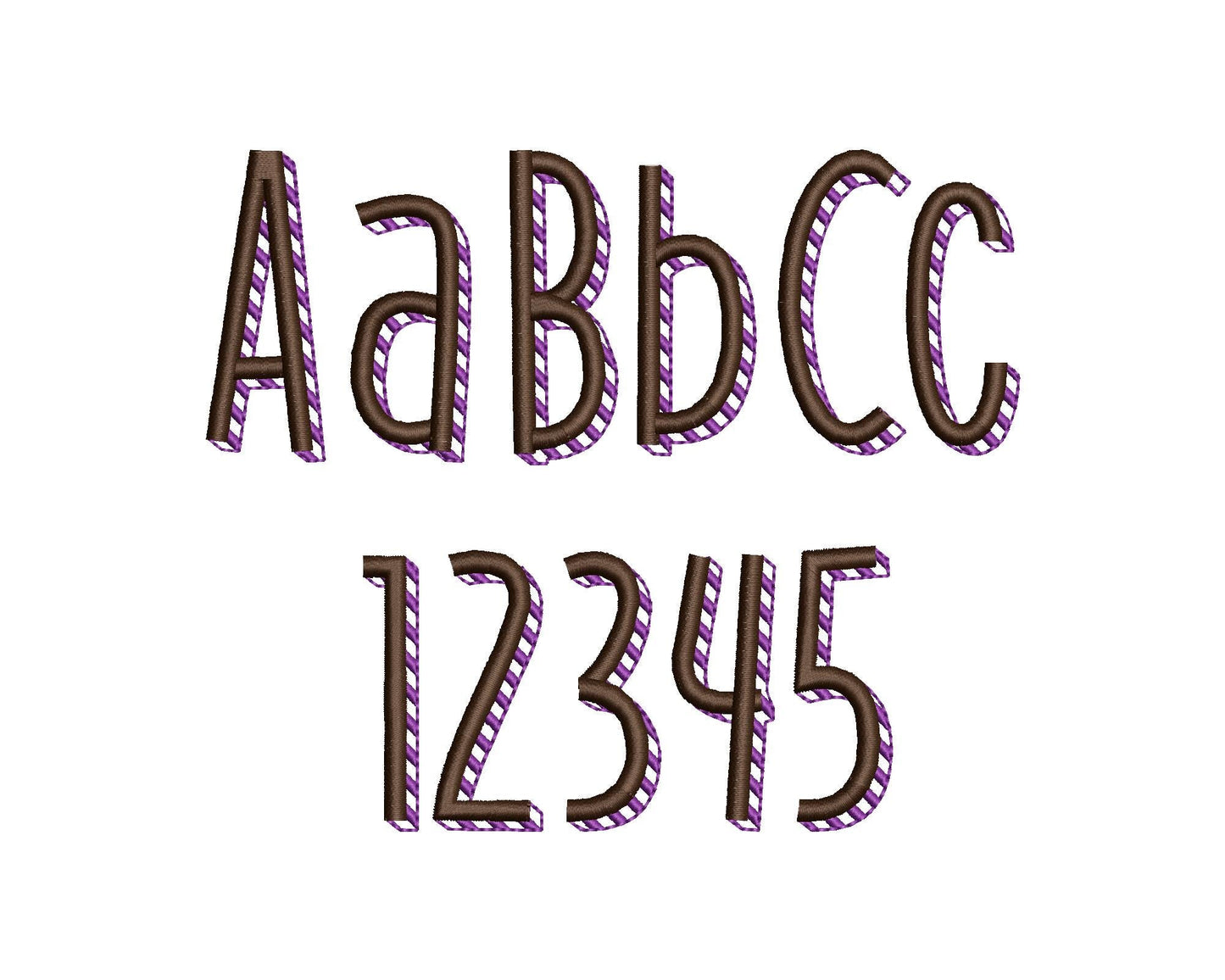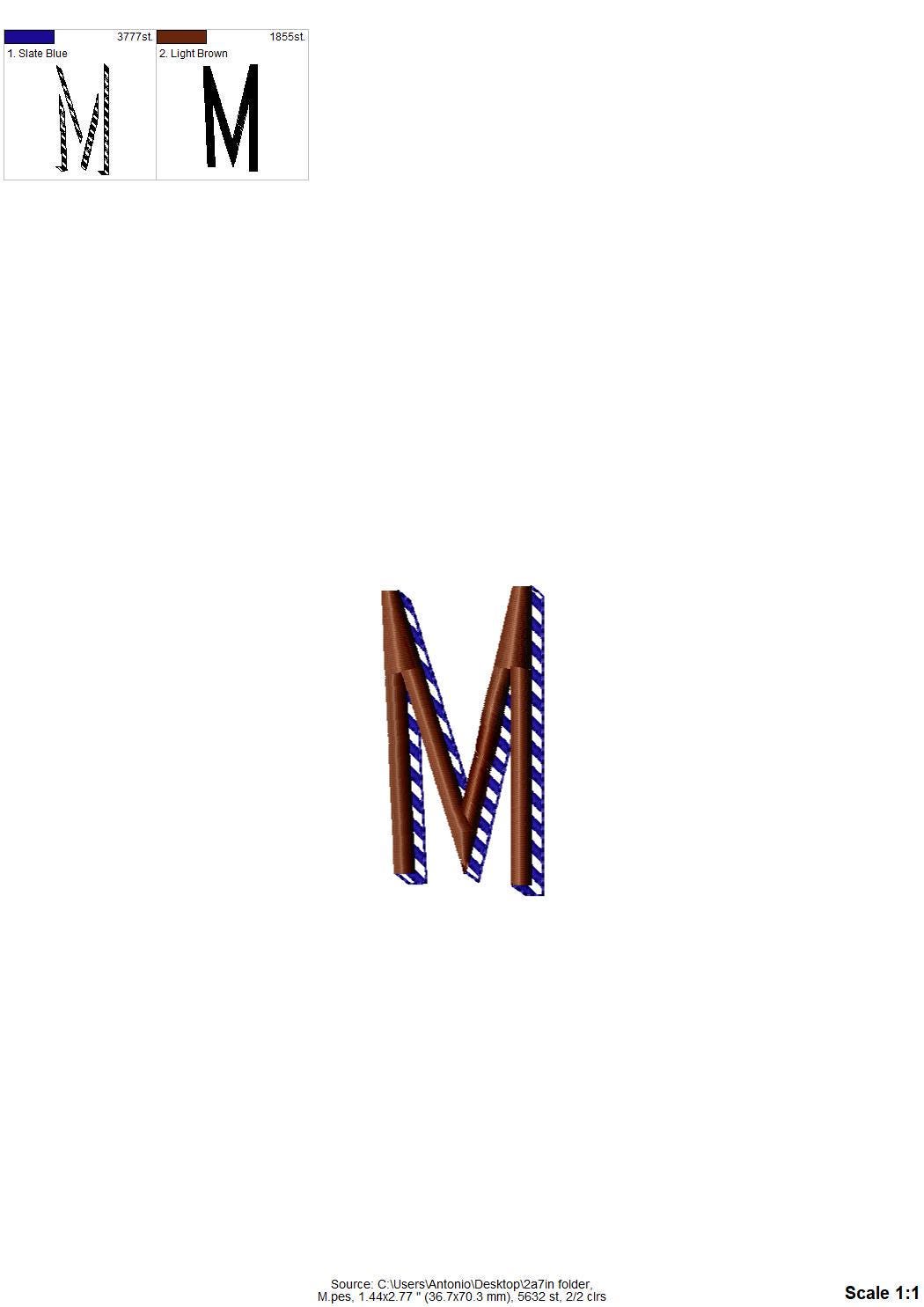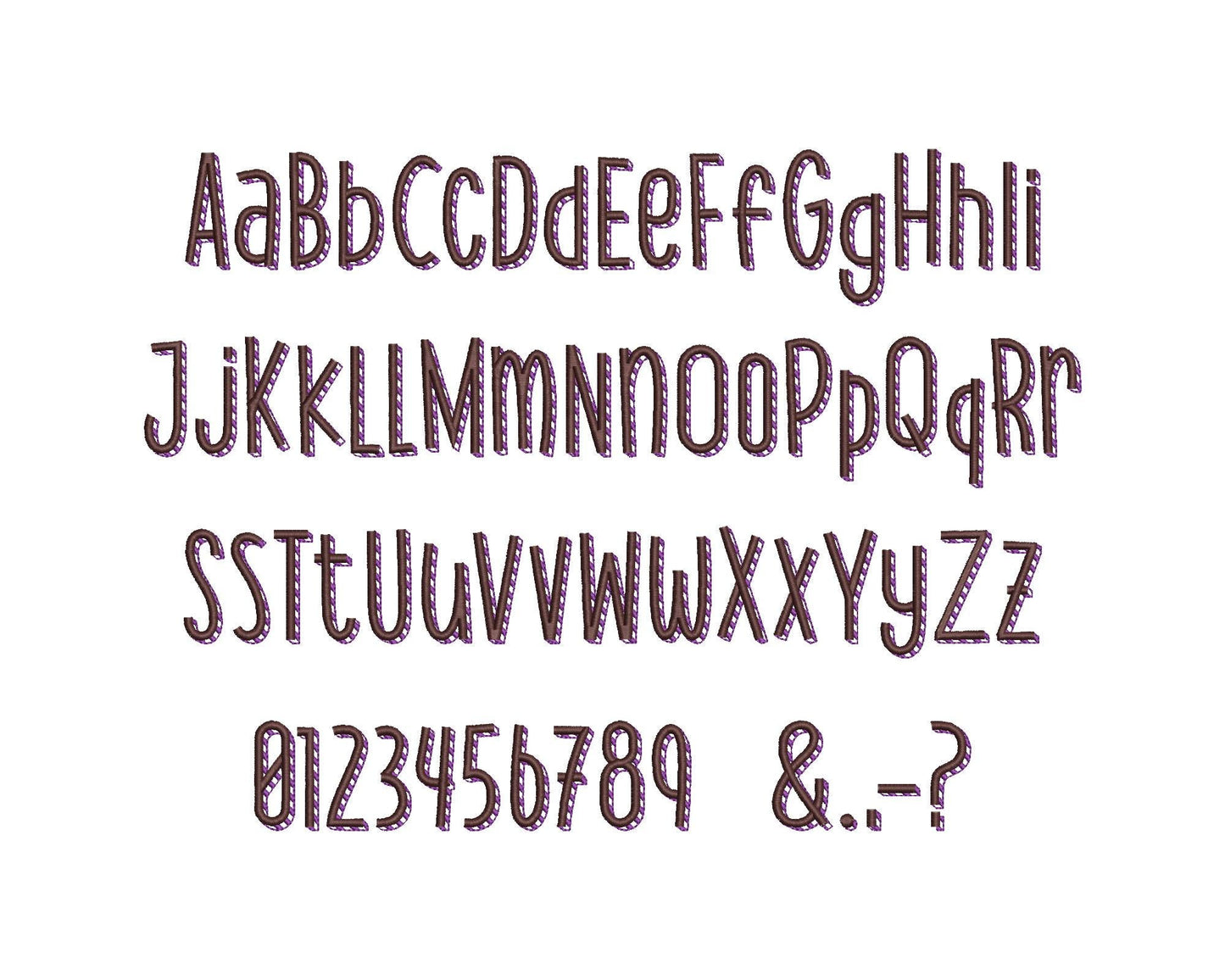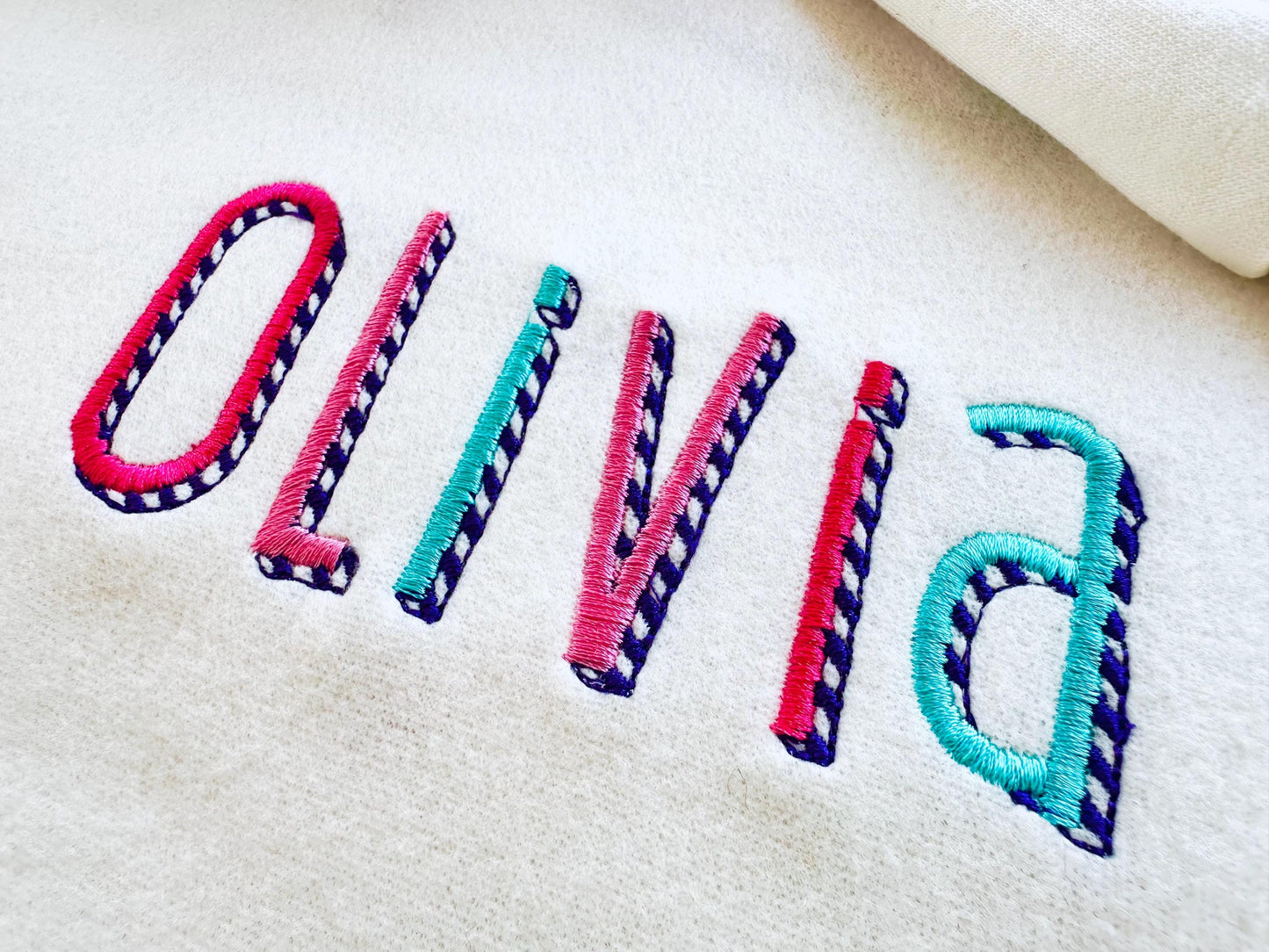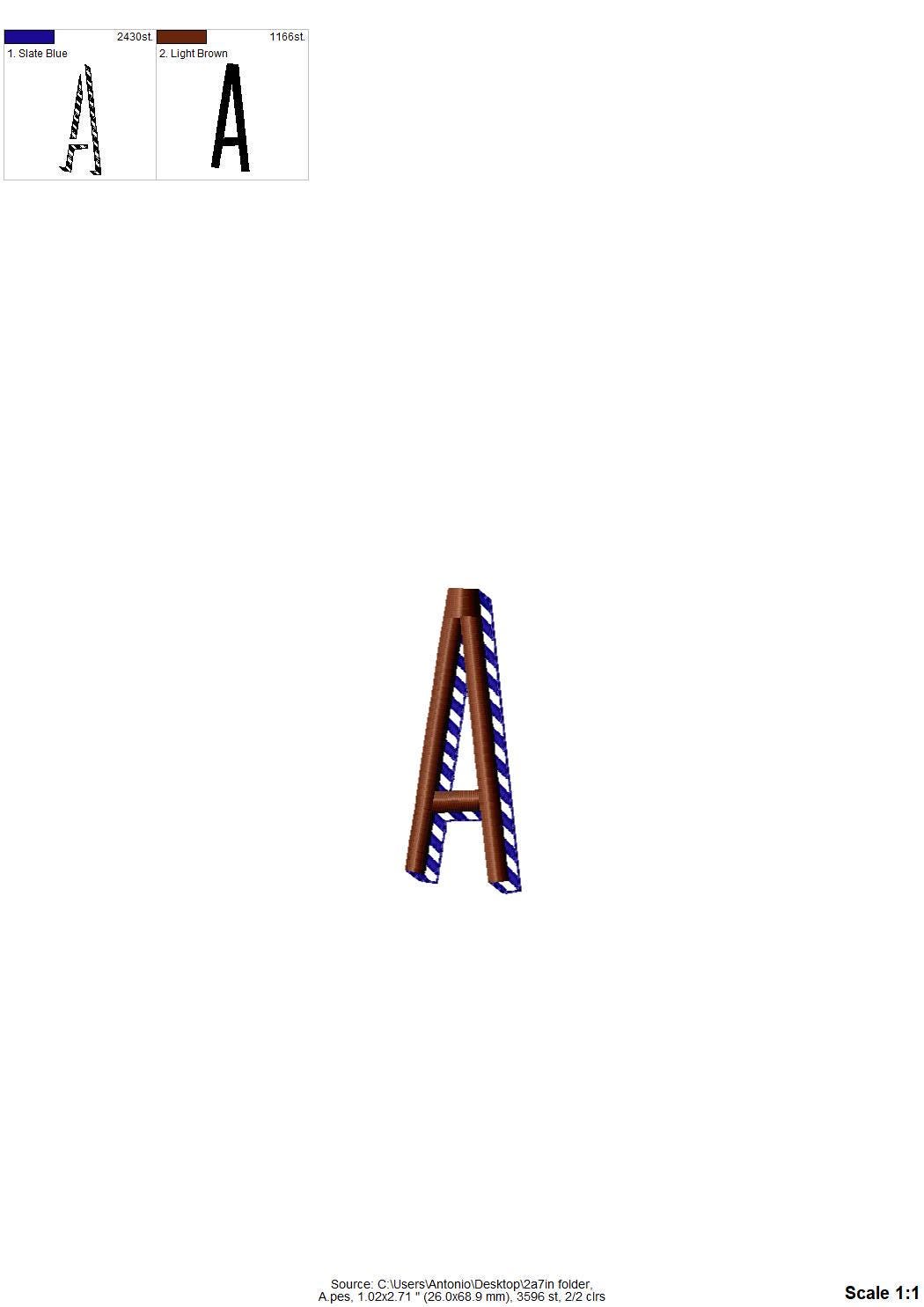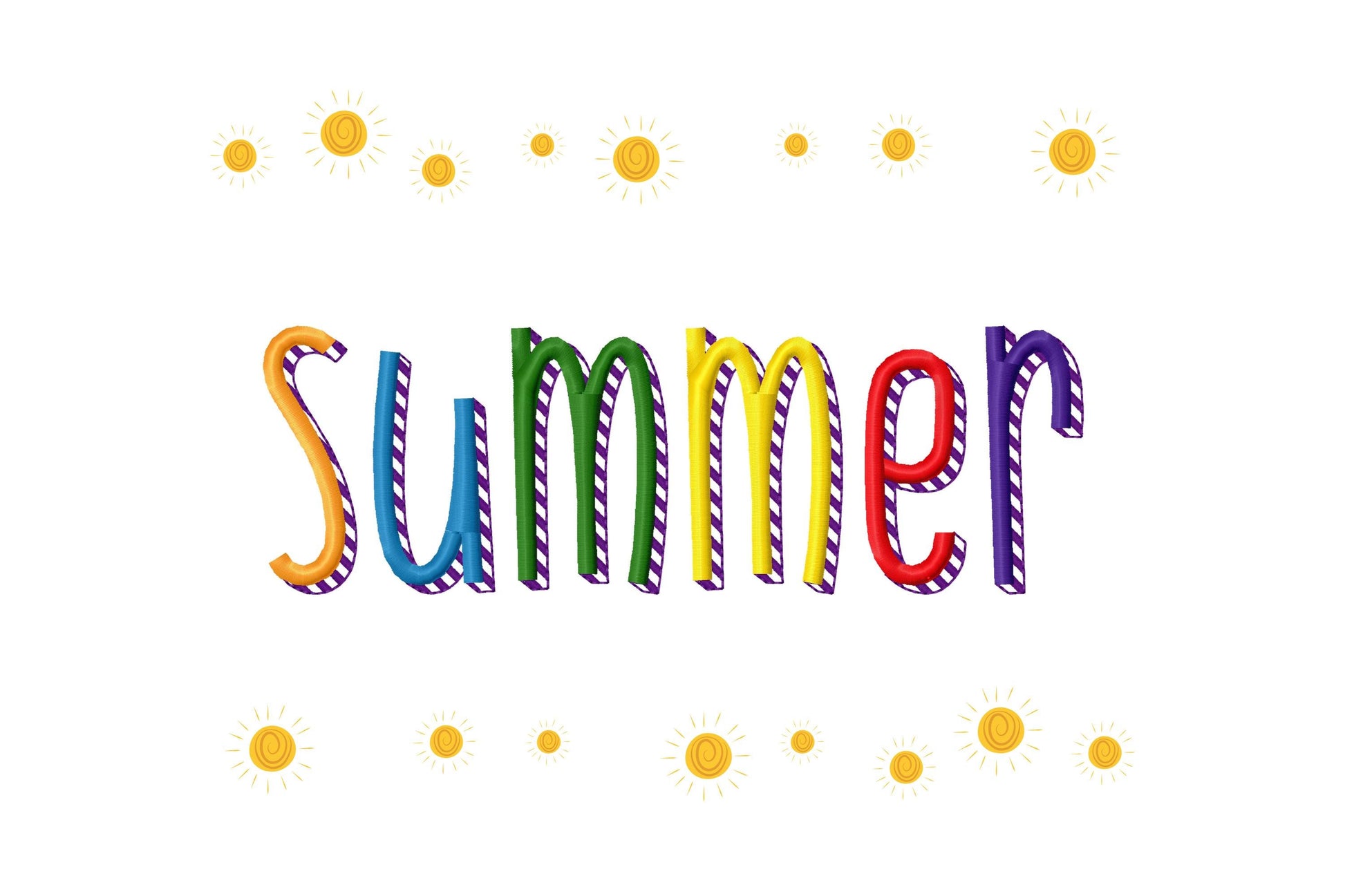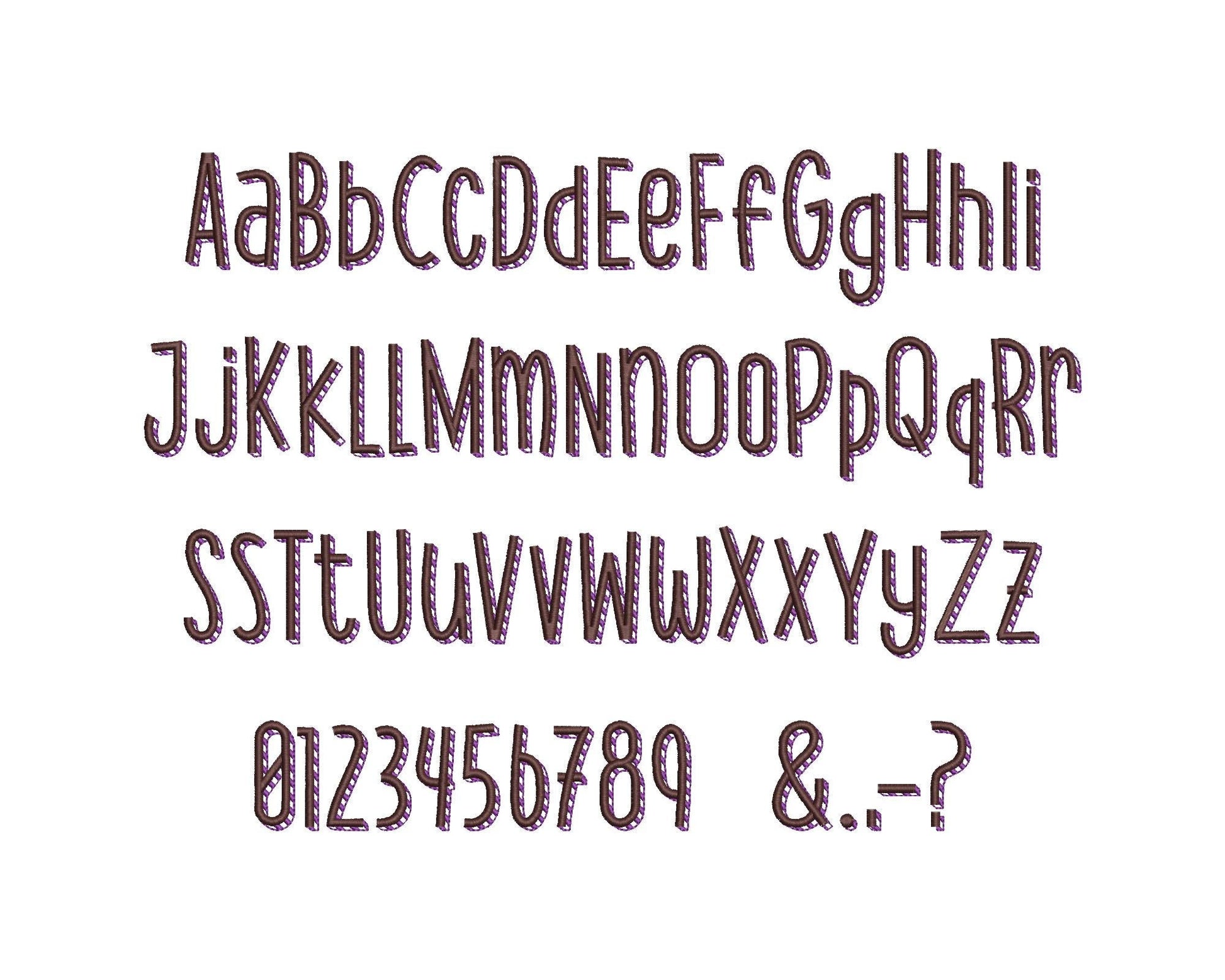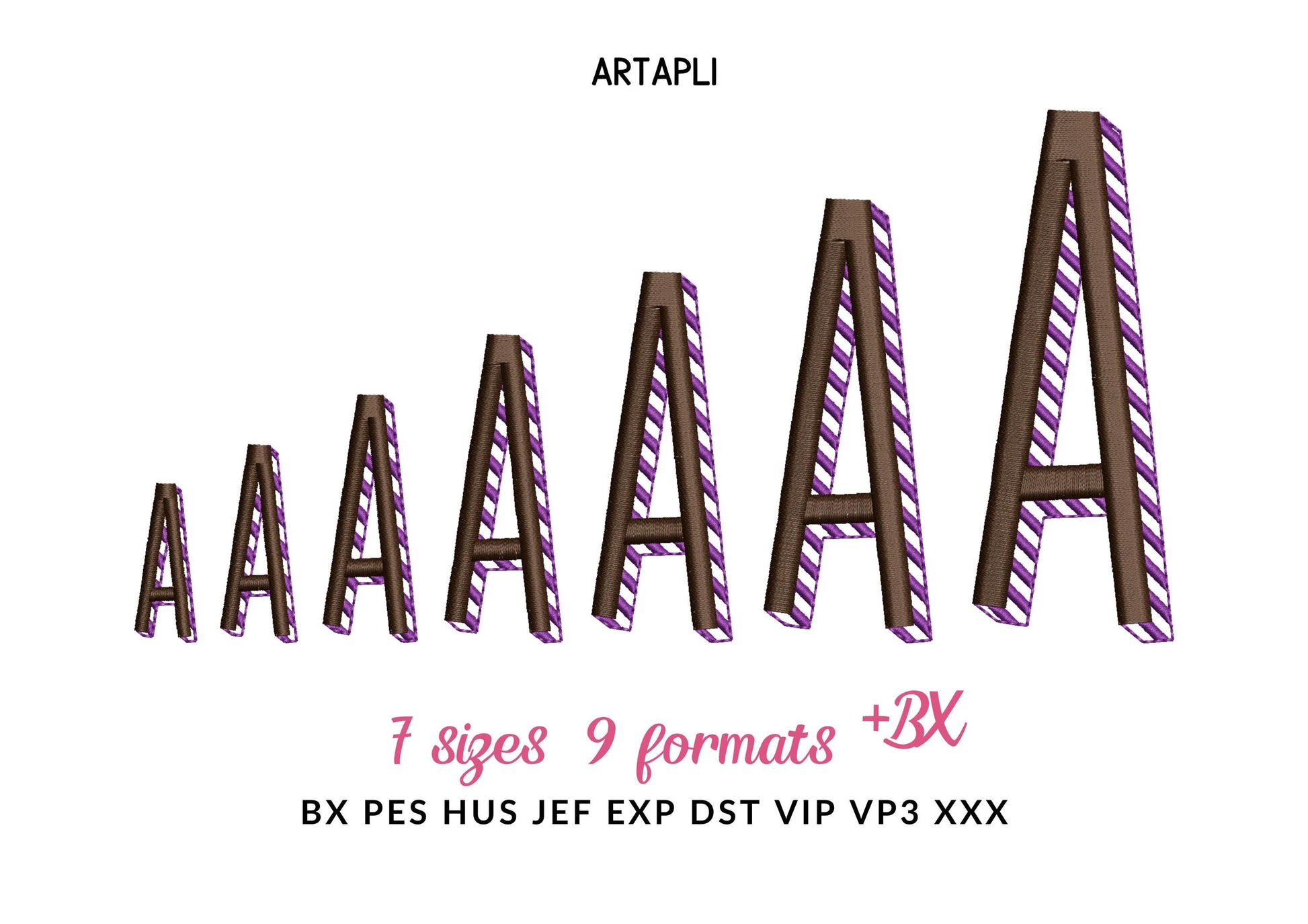
Shadow Font Satin Stitches & Stripe Shadow
Or click to open the linkA satin stitch font with a striped shadow you can see through. Colorful for kids' names, monograms and shirts.
Uppercase and lowercase letters, numbers 0 to 9 and punctuation, in seven sizes: 1.2, 1.5, 1.8, 2.3, 2.7, 3.3 and 4 inches. The striped shadow lets the fabric show between the stripes.
- Satin stitch font with striped shadow
- Uppercase and lowercase letters, numbers 0-9, punctuation
- 7 sizes, 1.2 to 4 in